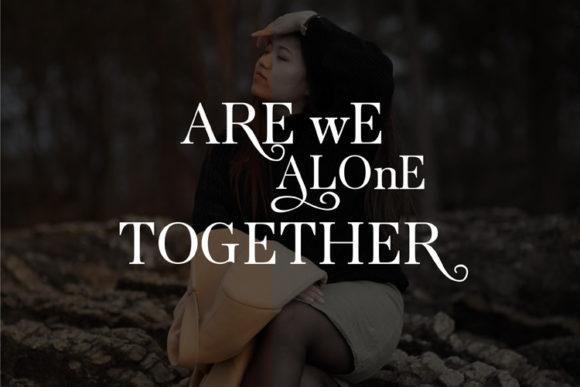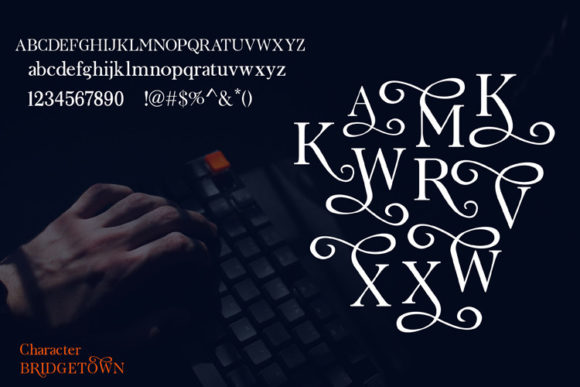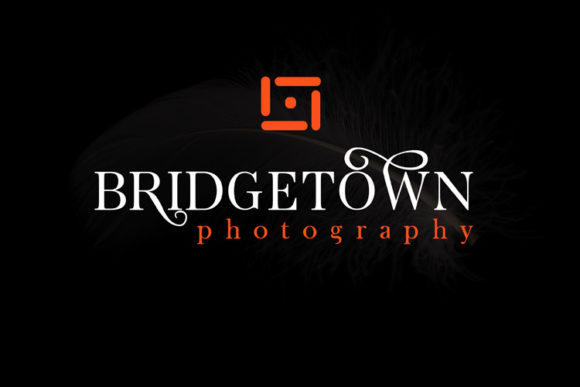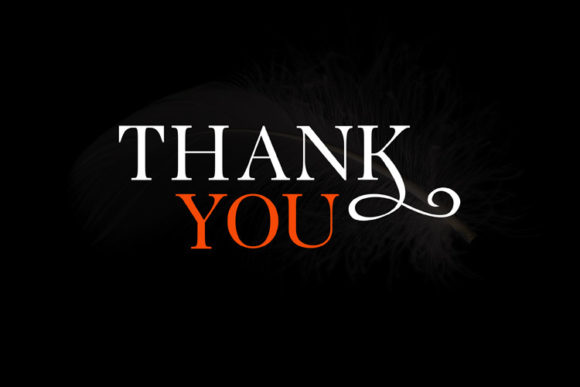
Discover the Elegance of Bridgetown Font: Elevate Your Designs with Versatility
In the world of typography, fonts play a crucial role in conveying messages, evoking emotions, and setting the tone for any design project. Among the vast array of fonts available, Bridgetown Font stands out as a beacon of elegance and versatility. This stunning serif font is designed to captivate audiences with its bold and sophisticated style, making it an ideal choice for a wide range of creative projects.
The Charm of Bridgetown Font
Bridgetown Font is an elegant and bold serif font that exudes a sense of luxury and refinement. Its incredibly versatile style allows designers and crafters to experiment with various applications, from creating gorgeous invitations and beautiful stationery art to eye-catching social media posts and more. Whether you’re working on a wedding invitation, a branding project, or a social media campaign, Bridgetown Font is sure to make a lasting impression.
Key Features of Bridgetown Font
- Elegant Serif Design: Bridgetown Font boasts a classic serif design that adds a touch of sophistication to any project.
- Bold and Versatile: The font’s bold style makes it perfect for headlines, titles, and emphasis, while its versatility allows for use in various design contexts.
- Easy to Read: Despite its boldness, Bridgetown Font remains highly legible, ensuring that your message is conveyed clearly and effectively.
- Highly Customizable: With Bridgetown Font, you can experiment with different sizes, colors, and styles to create a unique look that suits your brand or project.
Endless Design Possibilities with Bridgetown Font
The possibilities are endless when working with Bridgetown Font. Here are a few ideas to get you started:
- Wedding Invitations: Create stunning wedding invitations, save-the-date cards, and wedding stationery with Bridgetown Font.
- Branding and Packaging: Use Bridgetown Font to develop a cohesive brand identity, including logos, business cards, and product packaging.
- Social Media Graphics: Design eye-catching social media posts, banners, and ads that grab attention and drive engagement.
- Stationery and Art: Create beautiful stationery, art prints, and posters that showcase your creativity and style.
Why Choose Bridgetown Font?
With so many fonts available, why choose Bridgetown Font? Here are a few compelling reasons:
- Unique and Memorable: Bridgetown Font’s distinctive style ensures that your designs stand out from the crowd and leave a lasting impression.
- Time-Saving: With Bridgetown Font, you can create professional-looking designs quickly and efficiently, saving you time and effort.
In conclusion, Bridgetown Font is an exceptional serif font that offers a perfect blend of elegance, versatility, and sophistication. Whether you’re a designer, crafter, or DIY enthusiast, this stunning font is sure to elevate your designs and help you achieve your creative goals. With its bold style, easy readability, and endless design possibilities, Bridgetown Font is an excellent addition to any design toolkit.